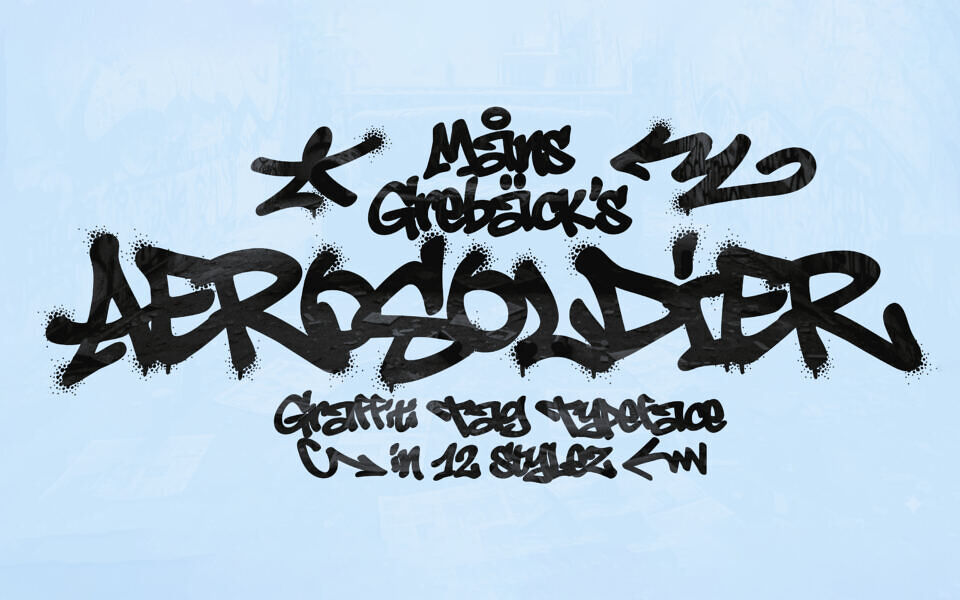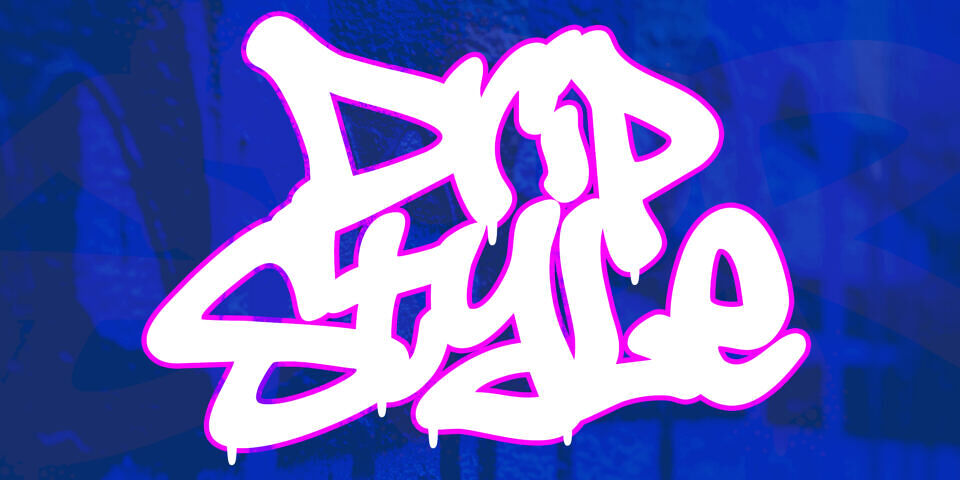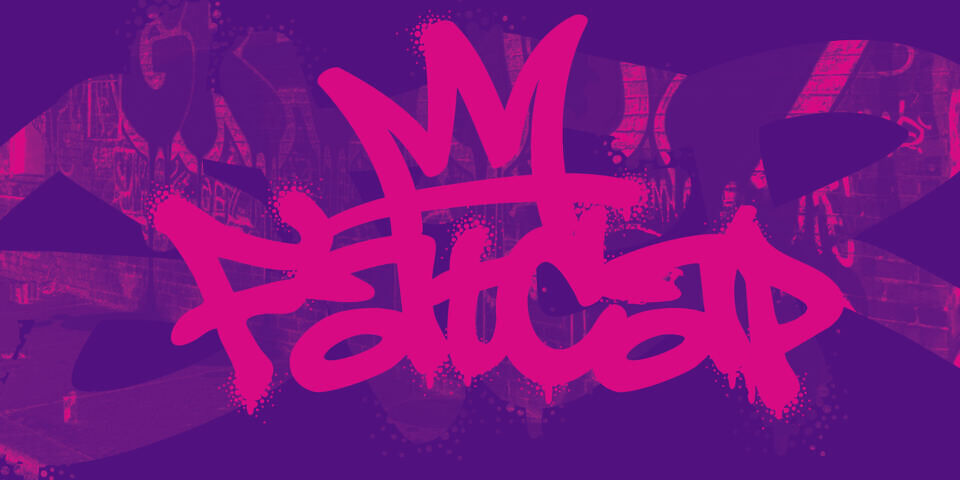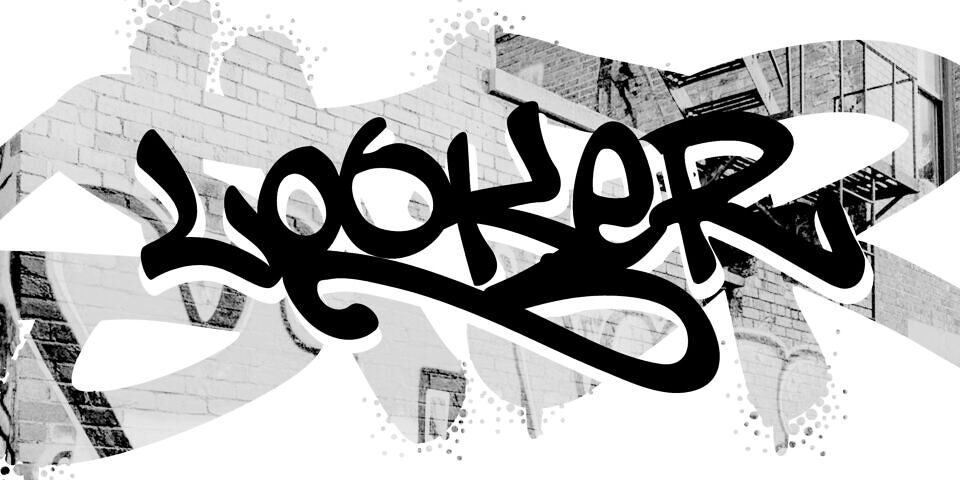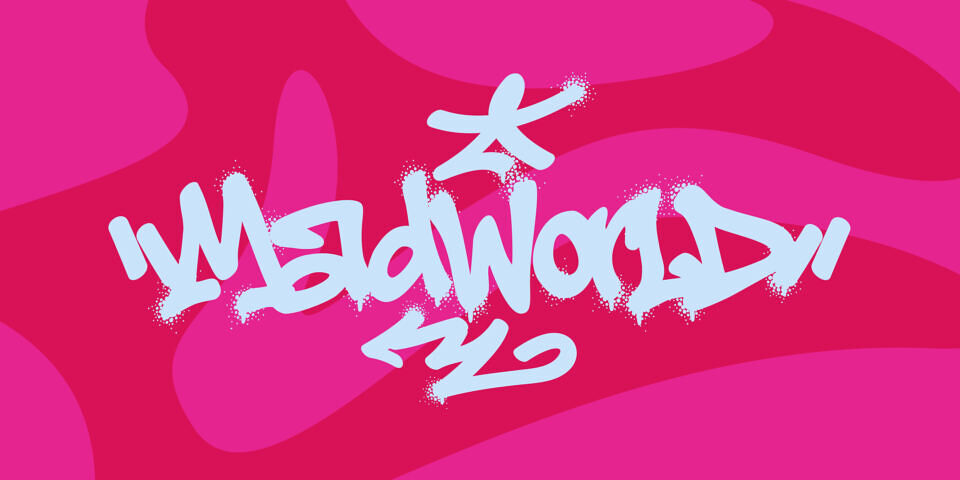
Aerosoldier Font
Aerosoldier is a bold and raw graffiti tag typeface, bursting with energy and streetwise attitude. Designed by Mans Greback, it mimics the rebellious rhythm of spray-painted tags and urban expression.
With twelve distinct styles—ranging from clean to drippy and sprayed—Aerosoldier captures the layered textures and intensity of graffiti culture. Each letter feels hand-thrown, like it’s just been laid down on a wall or train car under cover of night. The letterforms are dynamic and jagged, marked by spontaneous motion and precise chaos, perfect for capturing the voice of the street.